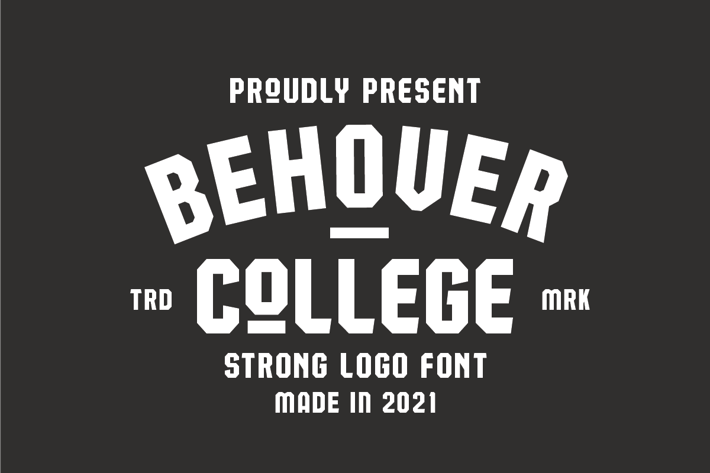
Behover College - Logo & Display Font
Behover College is a bold with sans style font, comes with mix lowercase and uppercase to make your design easier and strong bold character. Suitable for logotype, esport logo, or anything about display and headline. Happy Design! :)